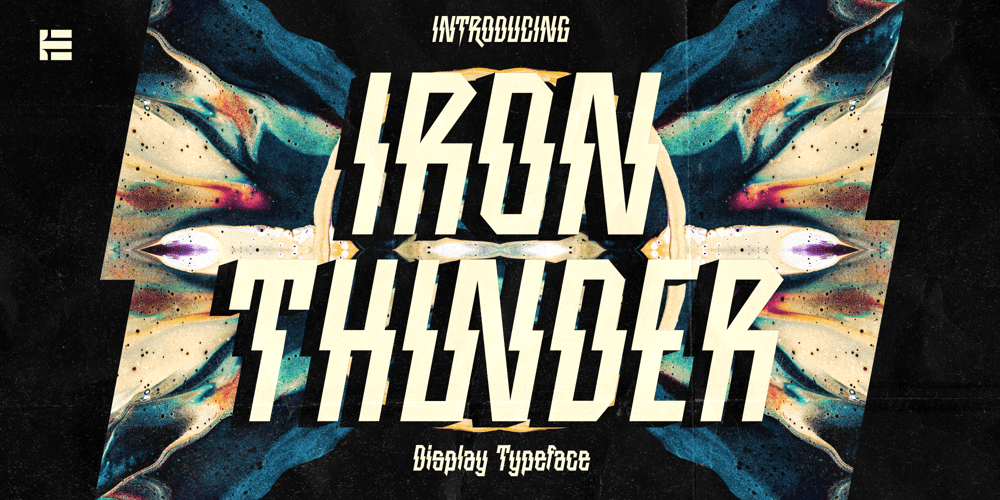
Iron Thunder Font Family was designed by Fajar Ramadan and published by Eotype. Iron Thunder contains 1 styles and family package options. Iron Thunder is an unique condensed display font inspired by thunderbolt. You can use this font in retro, vintage, and hipster designs. This font is perfect for a variety of projects, such as branding, poster displays, logo designs, magazines, headlines, stickers, and more.This font also has alternate and ligature features